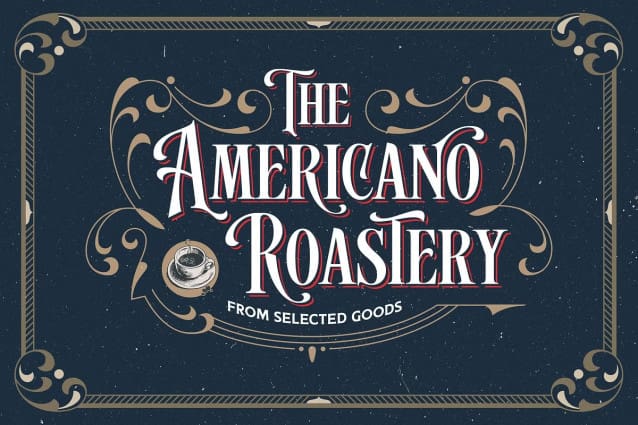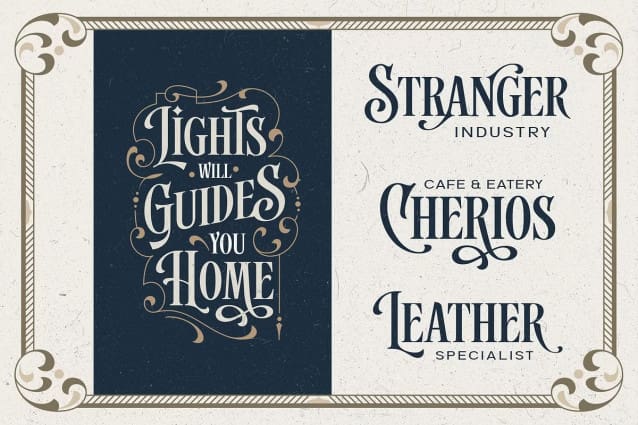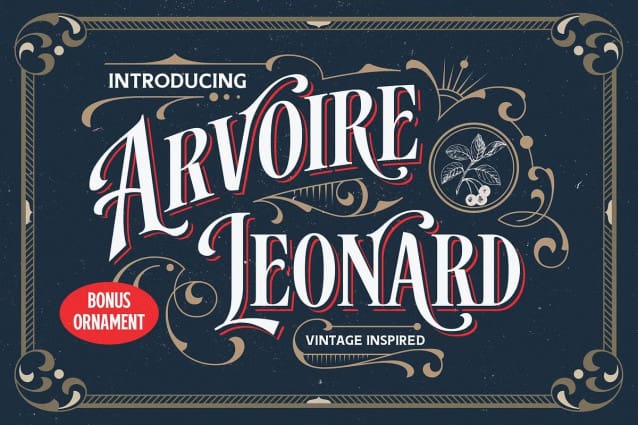
Arvoire Leonard Font
Arvoire Leonard Font inspired by 19th century typography, modern classic font. Collected from many references such as vintage signage, logos, badges, and old-fashioned graphics. ArvoireLeonard is An all-caps font, carefully crafted with an elegant touch but still with a classic feel.
Arvoire Leonard is perfect for many display purposes. You can use this font for poster, label, logo, signboard, t-shirt, book cover, decoration, merchandise, and more! Multilingual support, alternate characters and extra ornaments included!